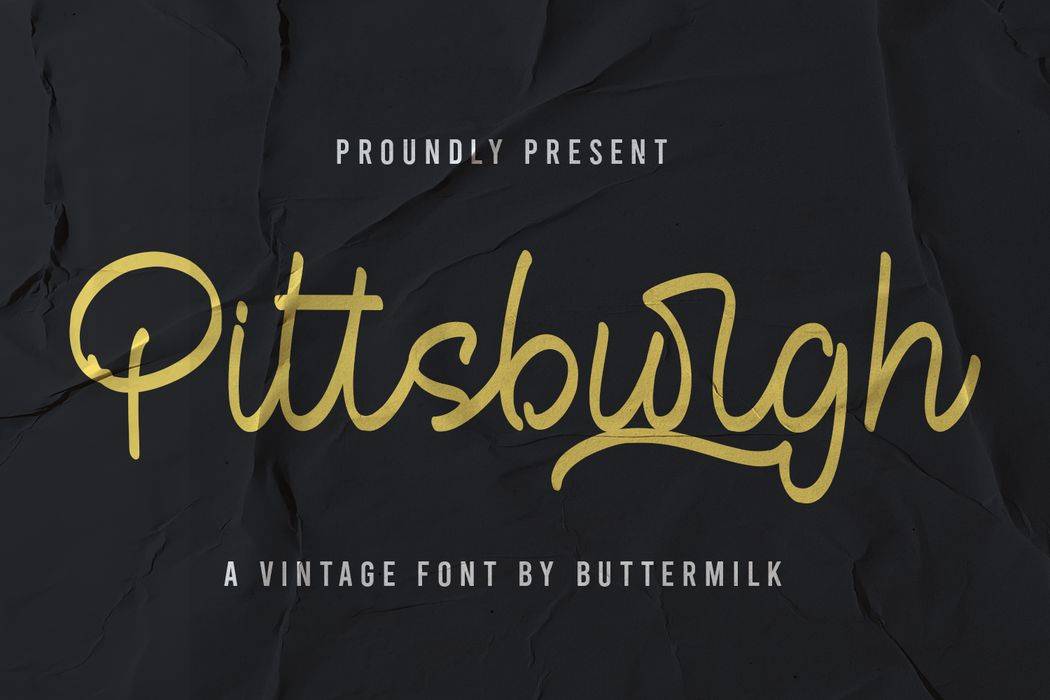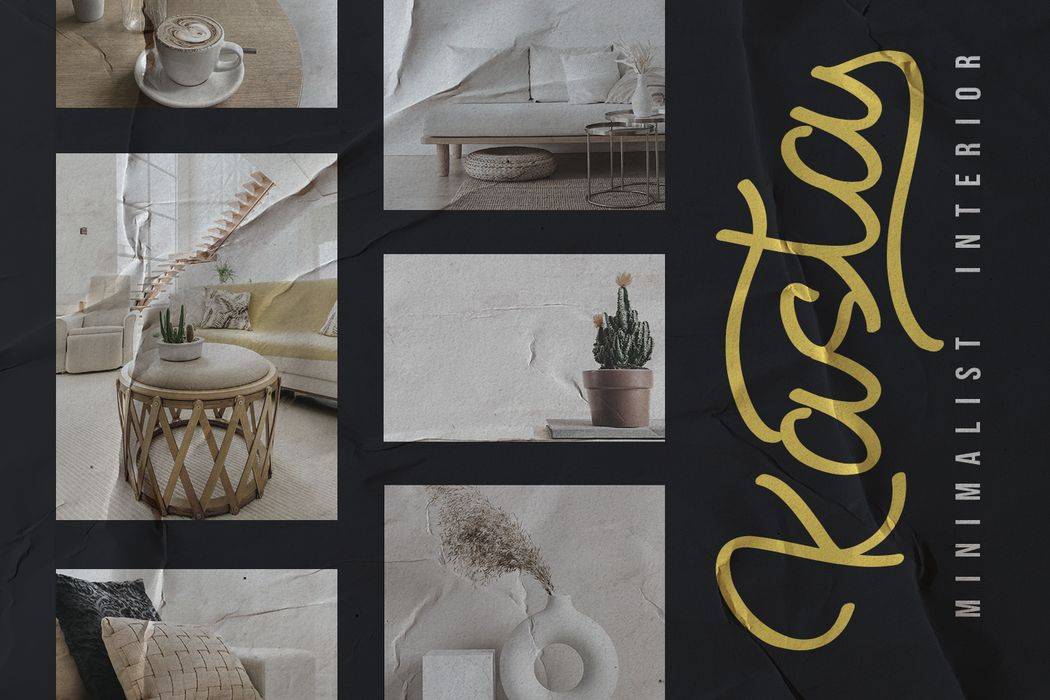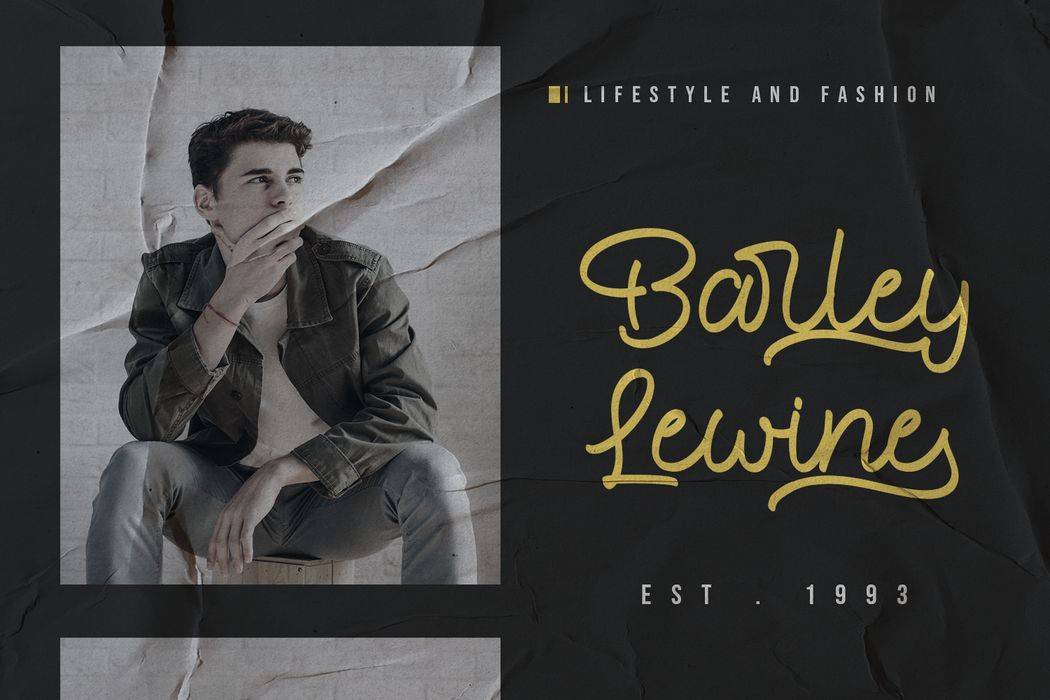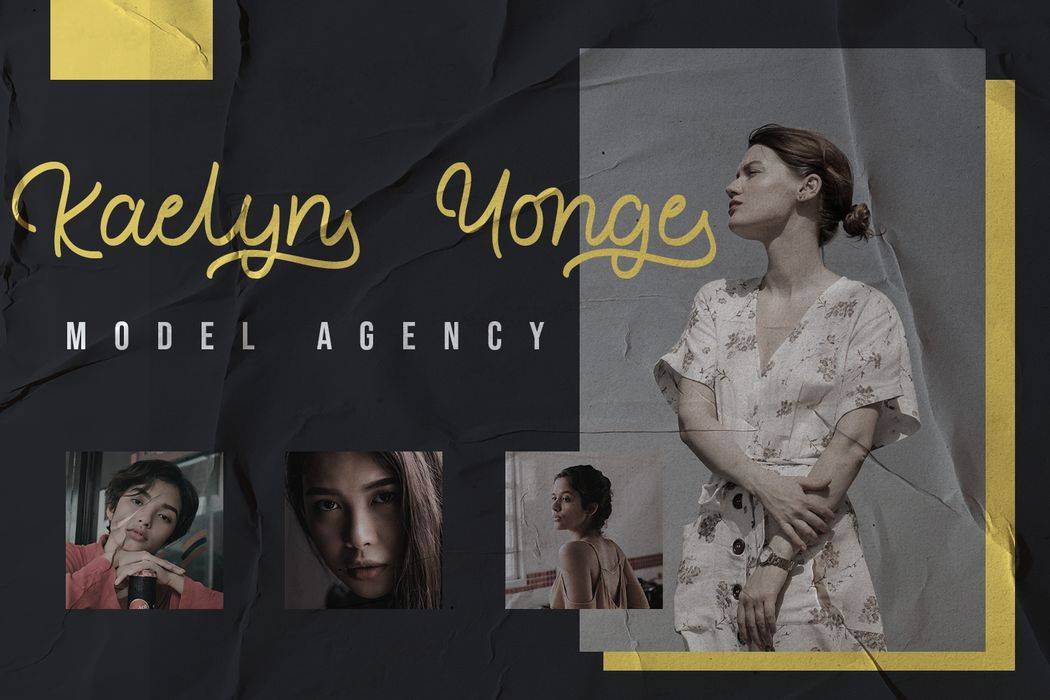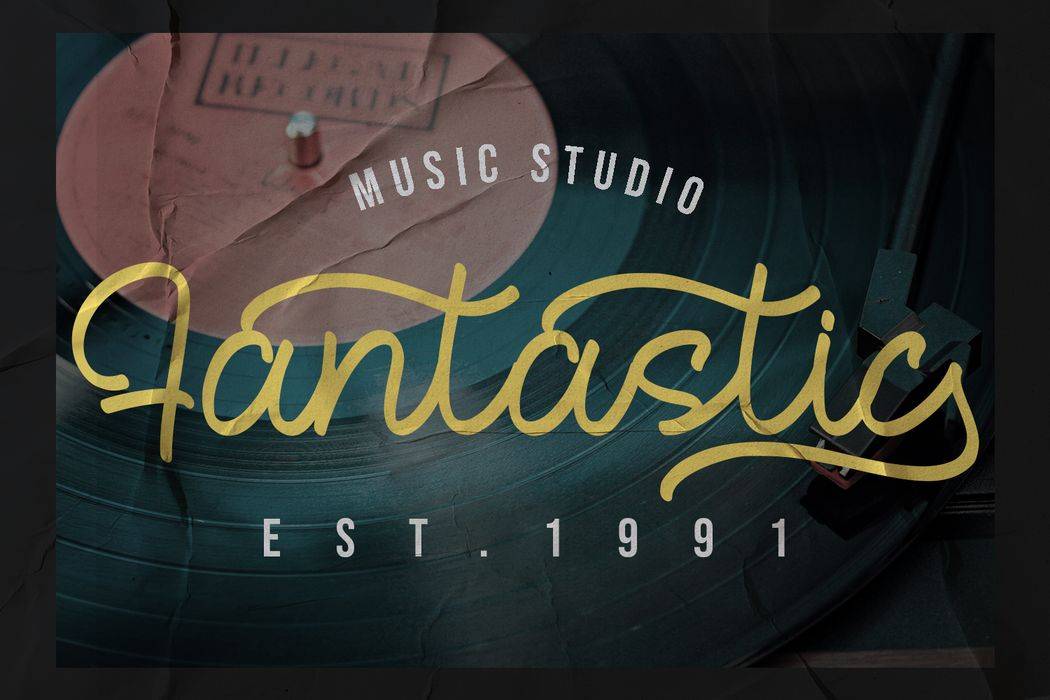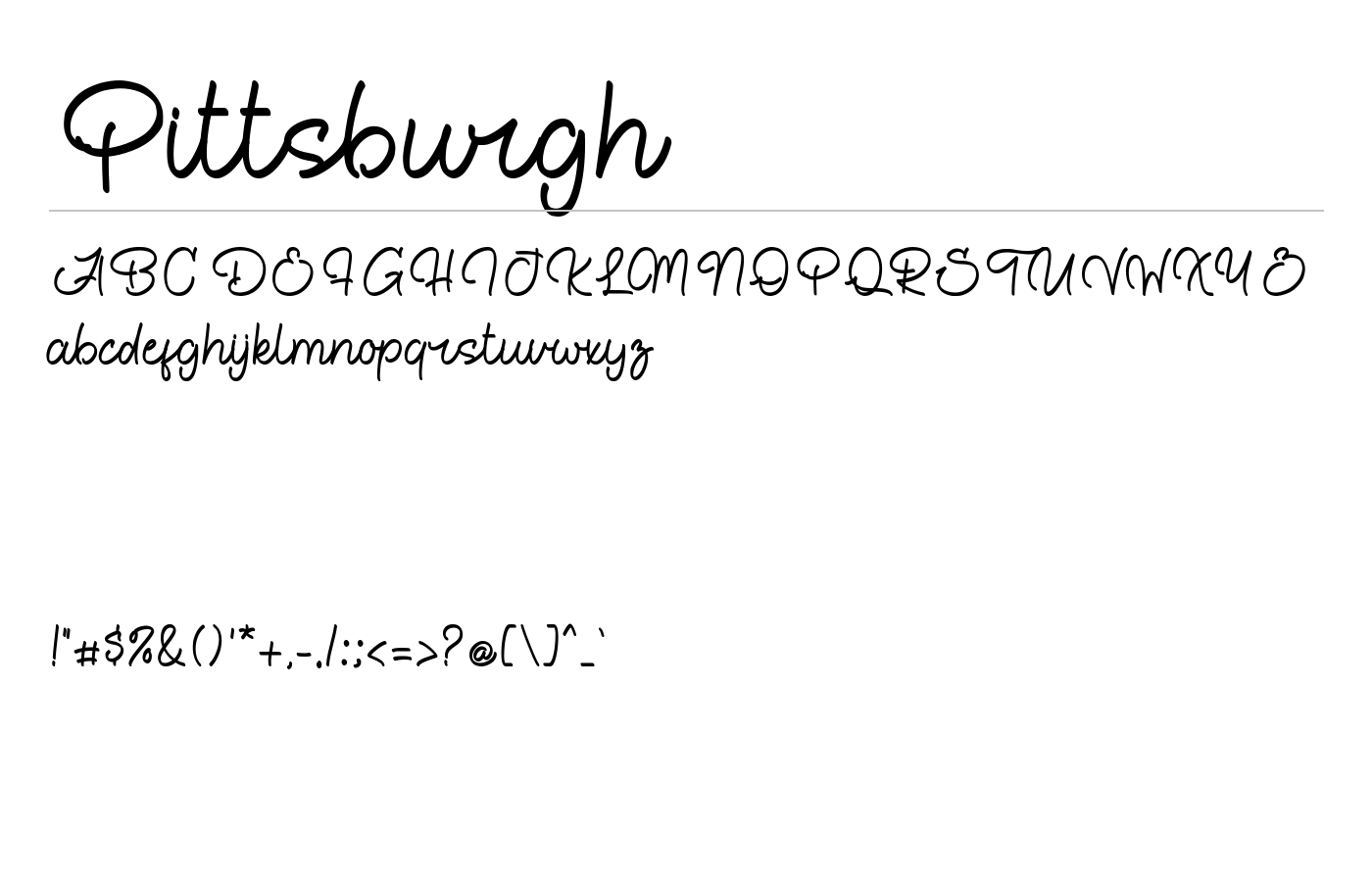
Pittsbutgh is a playful and elegant script font characterized by smooth, flowing strokes and a light weight that mimics natural handwriting. Its clean, rounded letterforms with subtle loops give it a friendly, approachable feel, making it ideal for creative projects like invitations, branding, and casual editorial uses where a personal touch is desired. This font works best in settings that benefit from a warm, charming vibe without sacrificing readability.
Pittsbutgh Font
About Pittsbutgh Font